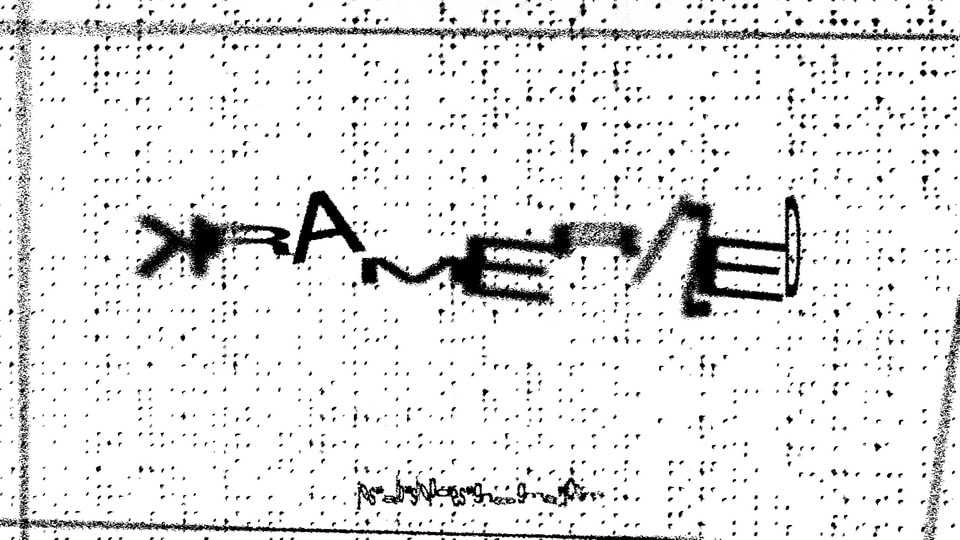
Download Kramerized font, a funky and eclectic typeface born from the spontaneous chaos of randomly distorted letters. Kramerized font is perfect for projects that crave a dash of eccentricity and a burst of creative energy.